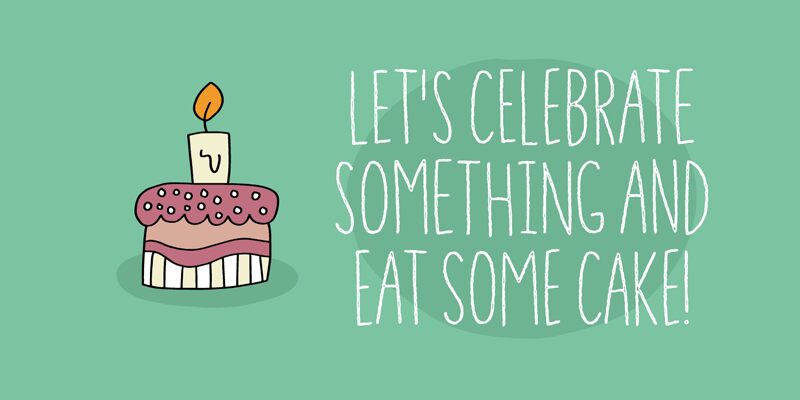
Looking for a playful font to add some personality to your project? Look no further than Another Fool, the cute handwritten font designed by Pizzadude. With its light weight and condensed width, this typeface is perfect for adding a touch of whimsy to your designs. The block letters make it ideal for projects like children's books, greeting cards, and social media graphics. Let Another Fool bring some fun to your next project!